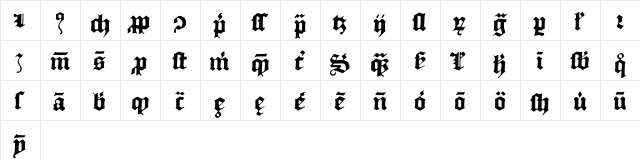
Historical EnglishTexturaAlt
Design Context for Historical Typeface
Historical draws on the rich tradition of blackletter calligraphy, with dense, angular strokes that evoke medieval manuscripts and old-world craftsmanship.
A natural fit for music packaging, gothic editorial design, and any project that needs historical weight.
Font Pairing: Pair with a clean neutral sans-serif for body copy to let Historical's character lead without overwhelming the composition.
Pro Tip: Reserve Historical for display and logo use — pair it with a clean sans-serif for body copy to prevent the composition from feeling oppressive.